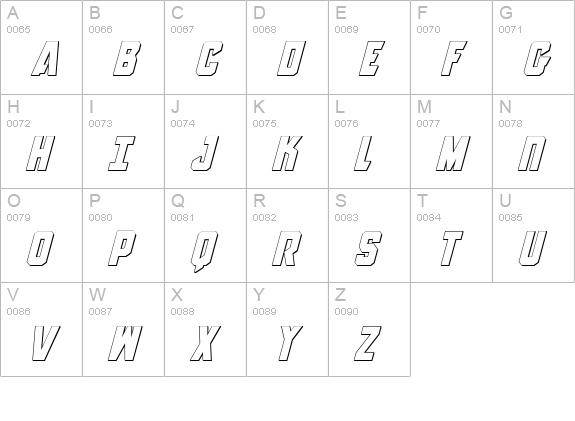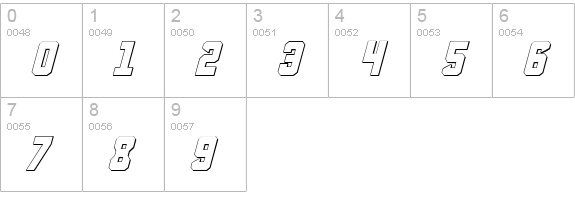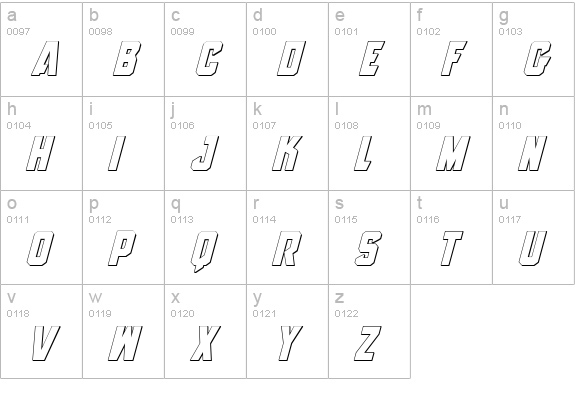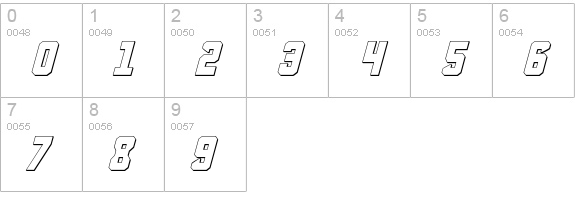
Anitlles 3D Italic is a distinctive, italic variant in the Anitlles typeface family \xE2\x80\x94 well suited to design and typography projects.
Introducing Antilles 3D Italic font - a captivating typeface that adds depth and dimension to your designs with its sleek and modern appearance. The unique 3D effect of this font gives your text a dynamic and eye-catching look, making it perfect for logos, headlines, and display purposes. What sets Antilles 3D Italic font apart is its elegant italic style, which adds a touch of sophistication to any project. The slanted letters exude a sense of movement and energy, while maintaining readability and clarity. And the best part? Antilles 3D Italic font is available for free download at FontsMarket.com. So you can enhance your designs with this stunning typeface without breaking the bank. Download Antilles 3D Italic font today and elevate your creative projects to new heights!